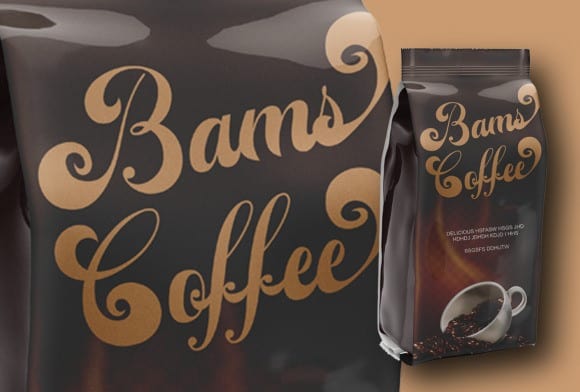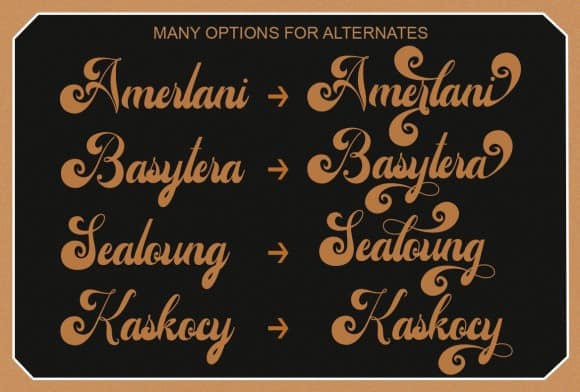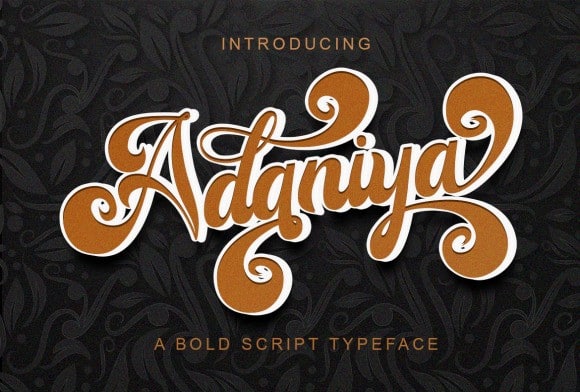
Adaniya Bold Script Font
Adaniya Bold Script Font is a luxury script typeface inspired by elegant and modern character. Line with smooth textures, crafted to give your headlines and logotype projects a stylish touch. This font reads as strong, confident, and dynamic and can add tons of nostalgic character to your designs.